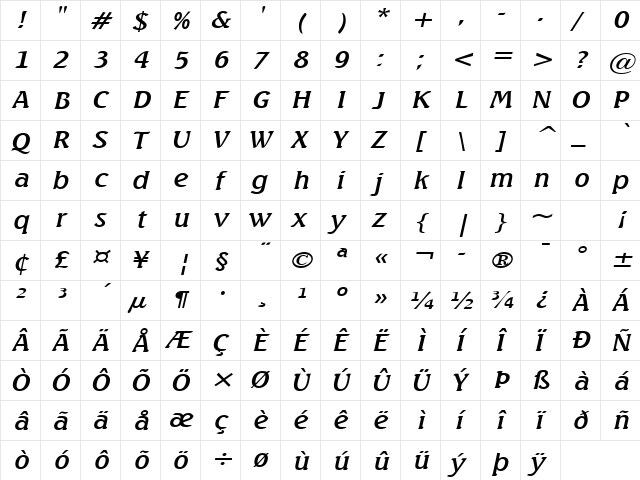
Beach-Extended Italic
Design Context for Beach-Extended Typeface
Beach-Extended takes a measured approach to typography — its balanced proportions and neutral character make it a reliable workhorse for both digital and print work. The dynamic lean of this cut emphasises speed and emphasis in any layout.
Pro Tip: Try Beach-Extended for annotation and caption copy alongside an upright companion — the contrast in angle creates a dynamic but ordered typographic system.